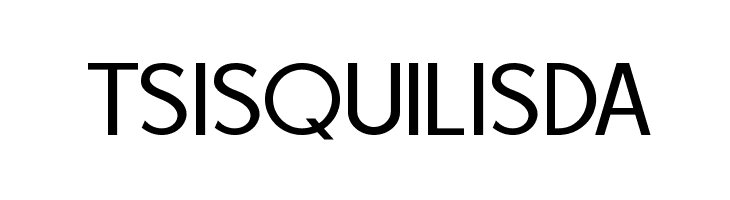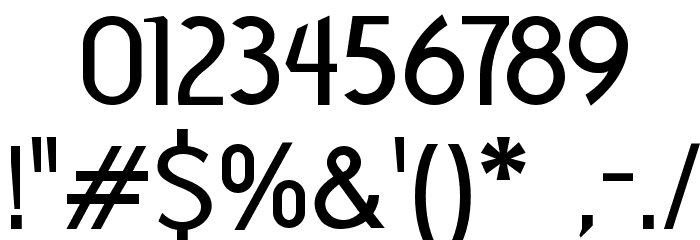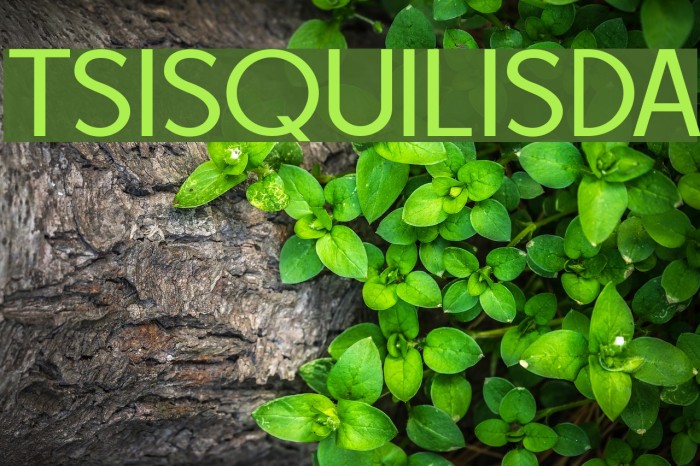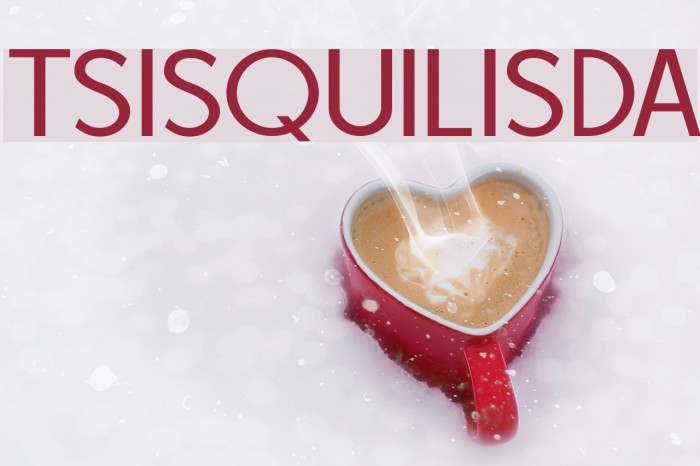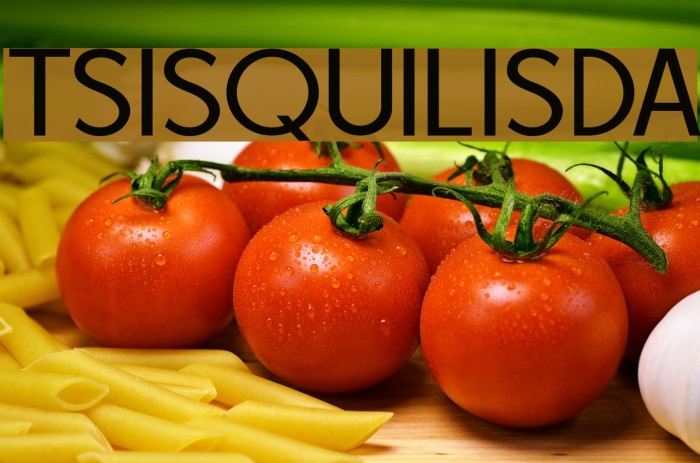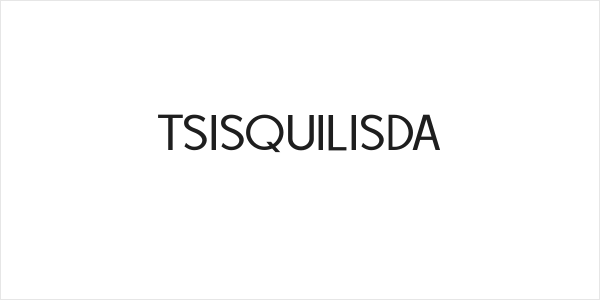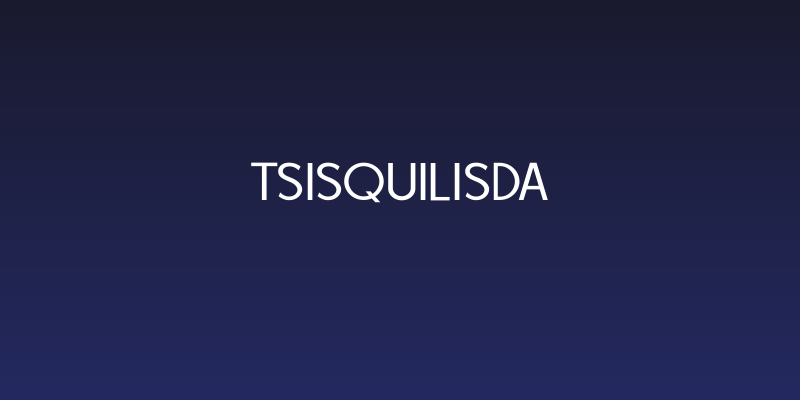
TSISQUILISDA Font
TSISQUILISDA Description
This typeface features a clean and modern sans-serif design, characterized by its uniform stroke width and geometric shapes. The uppercase letters are bold and assertive, while the lowercase letters maintain a consistent and harmonious appearance. The numerals are clear and legible, making them suitable for various applications. The special characters are well-integrated, ensuring versatility in design projects. Overall, this font exudes a contemporary and professional vibe, making it ideal for digital and print media.
A modern sans-serif font with geometric shapes and uniform stroke width from Uncategorized fonts.